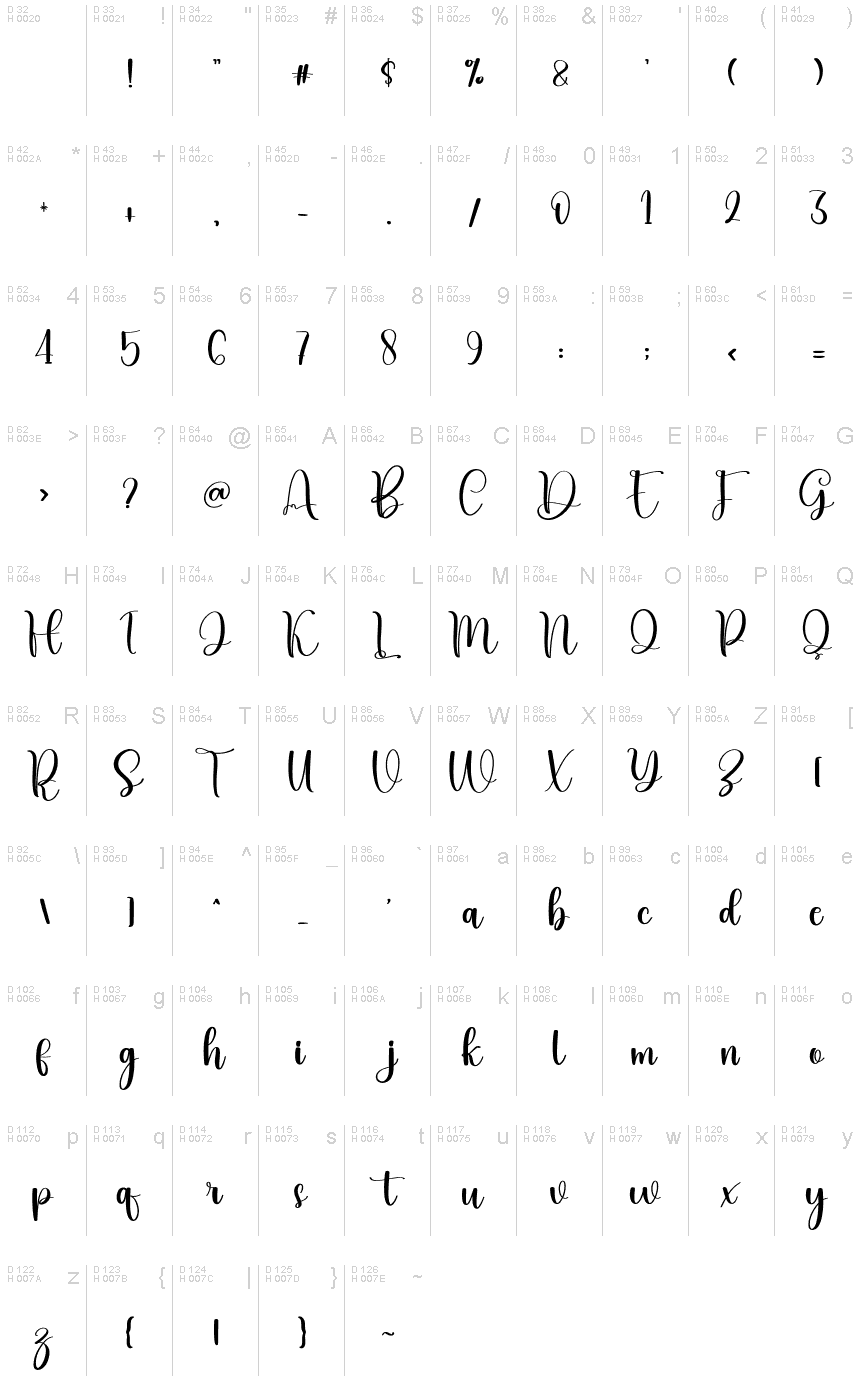
Write
Write, designed by Scratchones, brings the distinctive charm of handwritten communication to the digital realm. With its semi-light weight, this font exudes a delicate yet confident presence that mimics the personal touch of ink on paper. The artistry of Write is evident in its fluid character forms and subtle variations in stroke width, evoking the authenticity of handcrafted script.
The aesthetic appeal lies in its casual elegance and readability, making it an excellent choice for projects that require a touch of warmth and personality. From personalized invitations to branding elements that seek a bespoke feel, Write offers versatility while maintaining an intimate and approachable vibe.
Whether used for editorial purposes or integrated into web design, Write's handwritten style adds an organic layer to visual storytelling. Its suitability spans across various creative applications where the goal is to convey genuineness and individuality with a stylish flair.